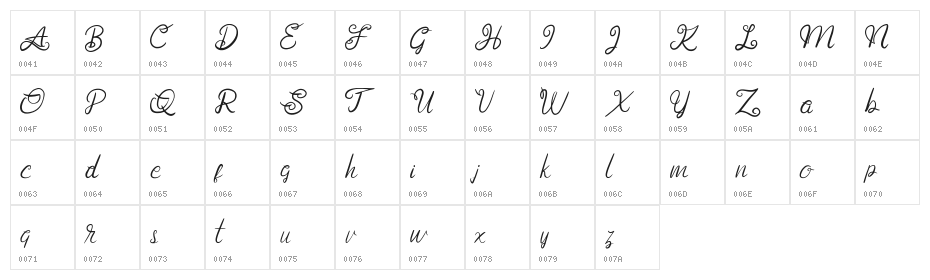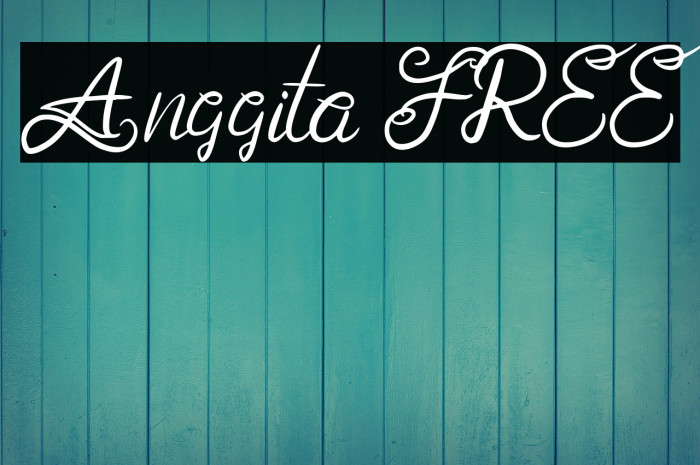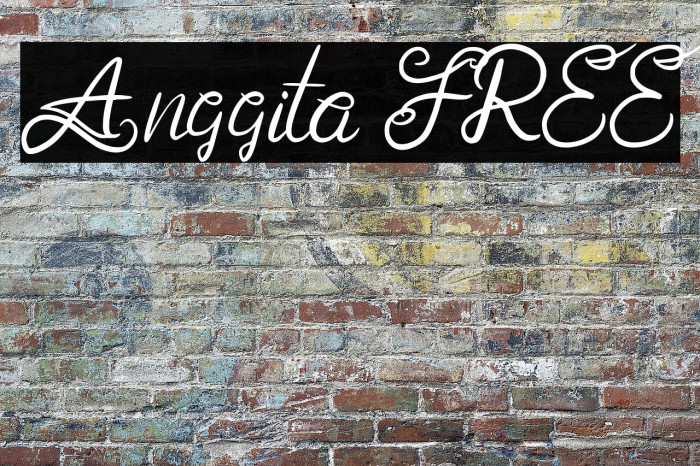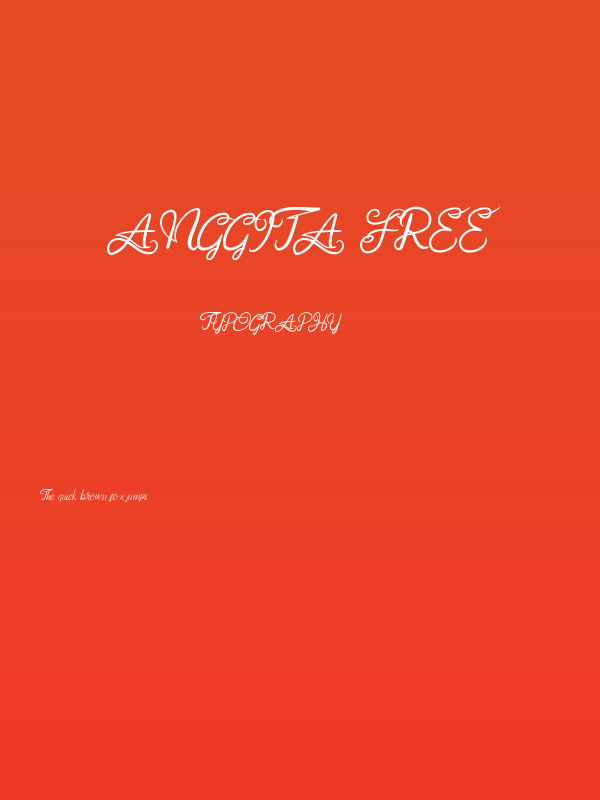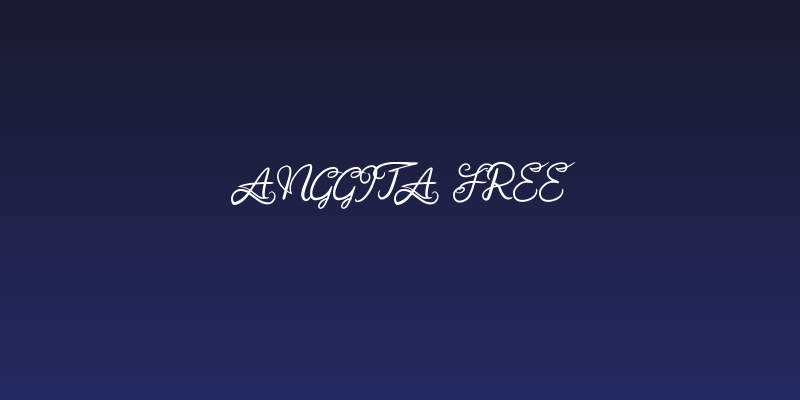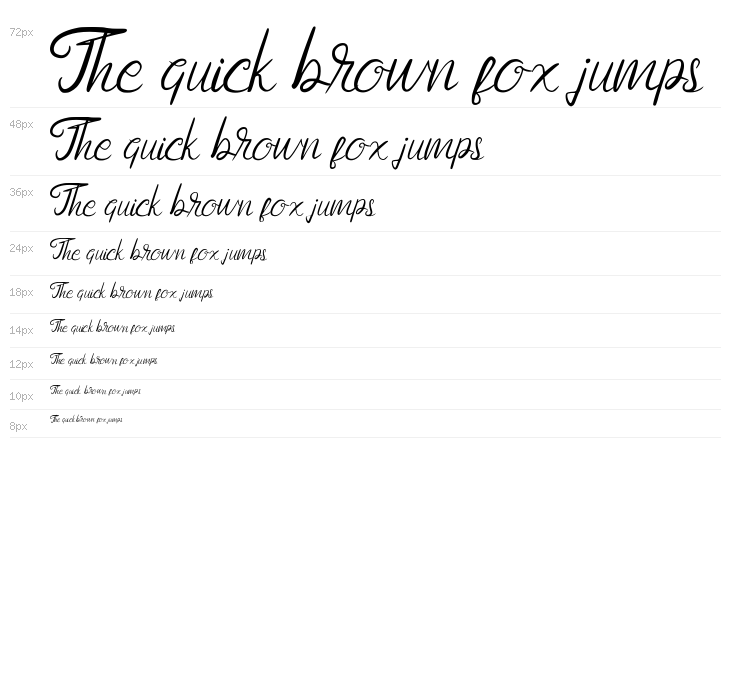
Anggita FREE Font
Anggita FREE Description
This font features an elegant and flowing script style, characterized by its graceful curves and loops. The uppercase letters are ornate, with intricate swirls that add a touch of sophistication. The lowercase letters maintain a consistent fluidity, making them visually appealing and easy to read. The numbers and special characters are designed to match the overall aesthetic, ensuring a cohesive look across all text. This font is ideal for projects that require a touch of elegance and formality, such as wedding invitations, certificates, or high-end branding materials.
| Use Case | Headlines, Invitations, Branding |
| Proposed Projects | Wedding invitations, certificates, luxury branding, greeting cards, and formal event materials. |